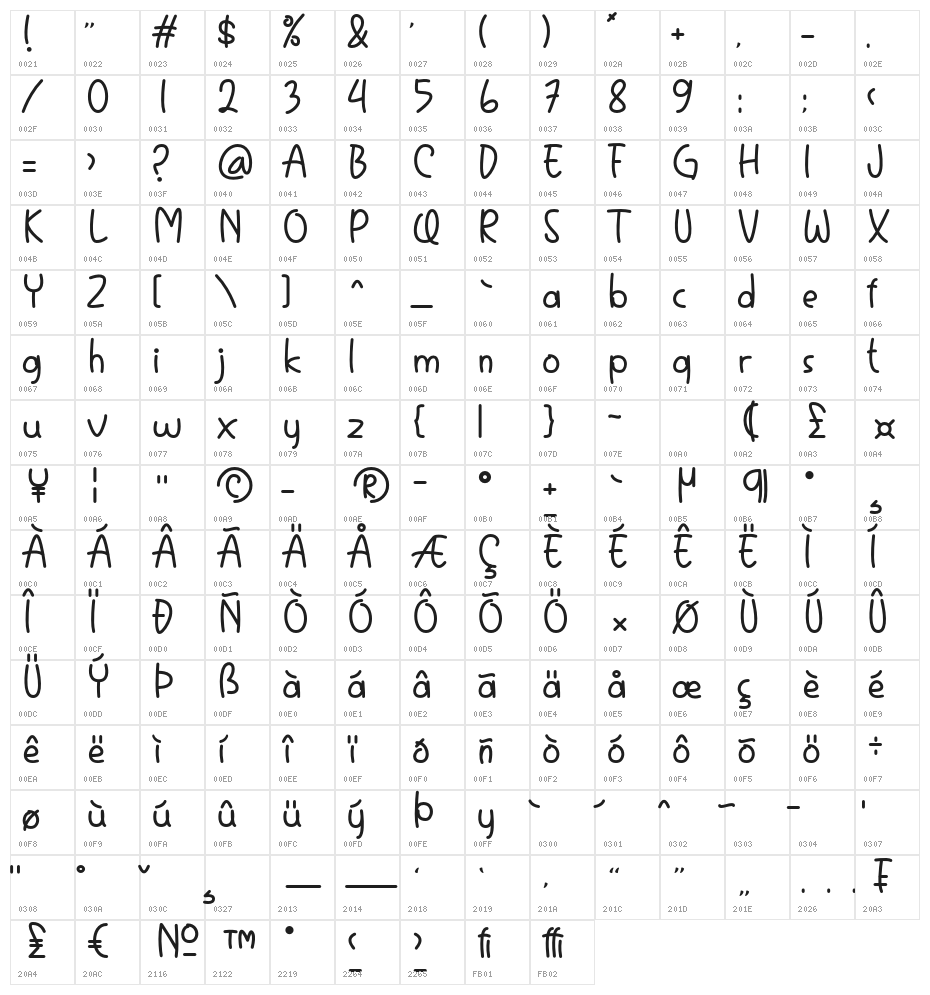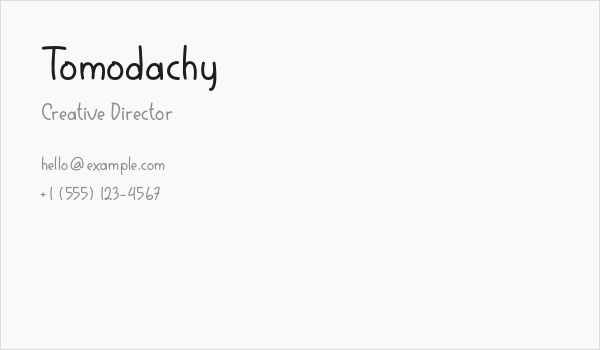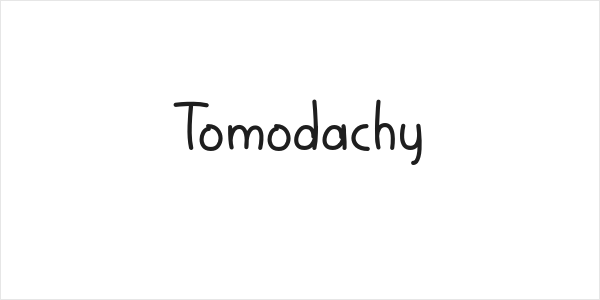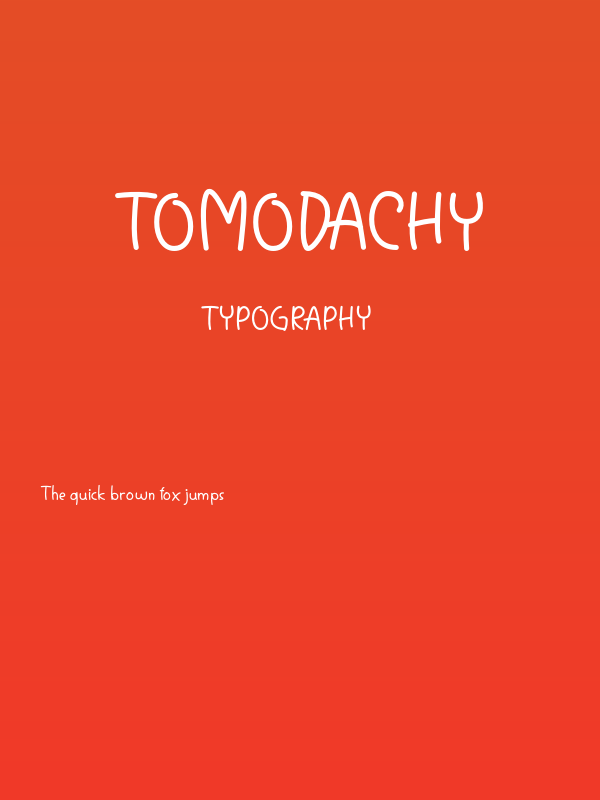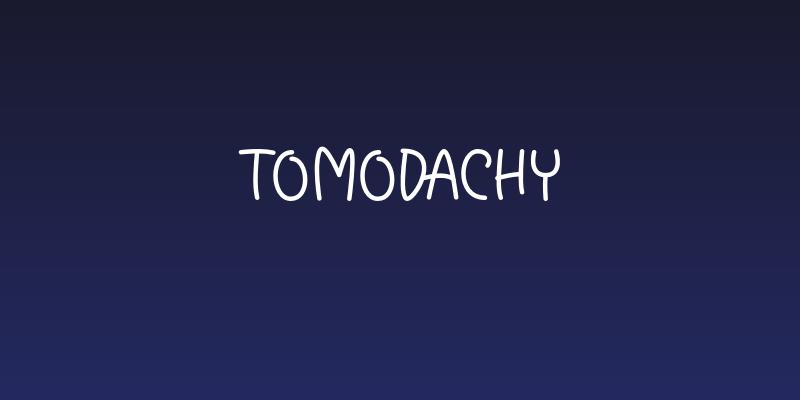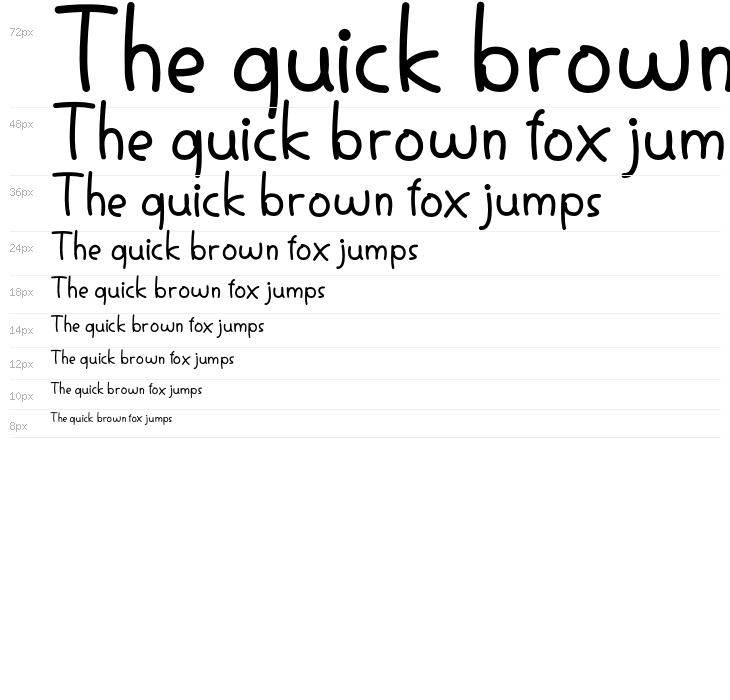
Tomodachy Font
Tomodachy Description
This playful and friendly font features rounded, hand-drawn characters that convey a sense of warmth and approachability. The letters are slightly irregular, adding a whimsical touch that makes it ideal for informal and creative projects. The strokes are consistent in thickness, providing a uniform appearance while maintaining a casual, relaxed vibe. The font includes a full set of uppercase and lowercase letters, numbers, and a variety of punctuation marks and symbols, making it versatile for various design needs.
| Proposed Projects | Ideal for children's books, greeting cards, playful branding, and casual invitations. |